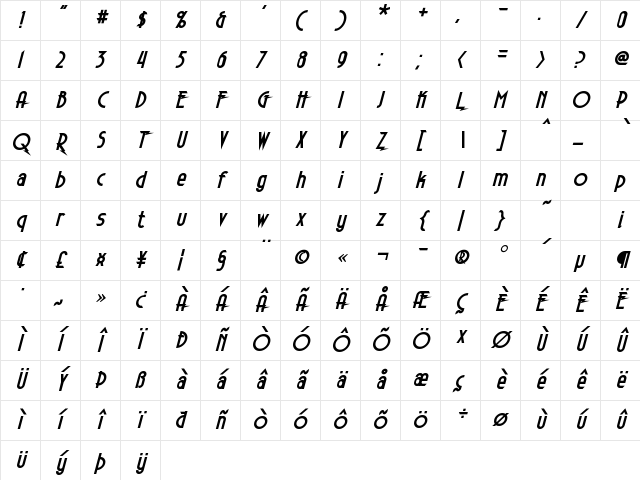
Electrorocket Bold Free Font
Electrorocket Bold
Foundry: Neale Davidson
Designer: Neale Davidson
Design Context for Electrorocket
Electrorocket is a composed and adaptable typeface that performs quietly and consistently across a wide range of design contexts. Its bold stroke weight gives it real presence on the page.